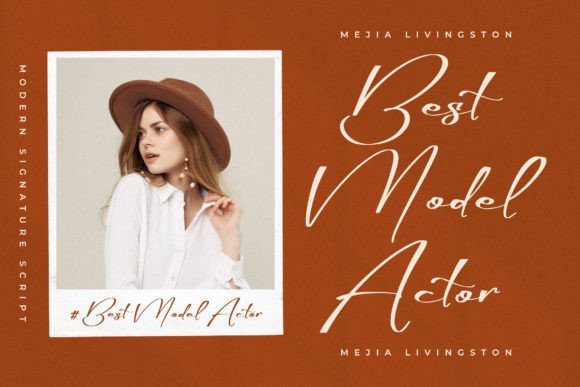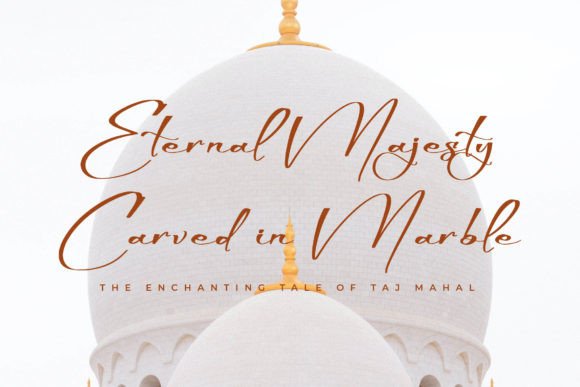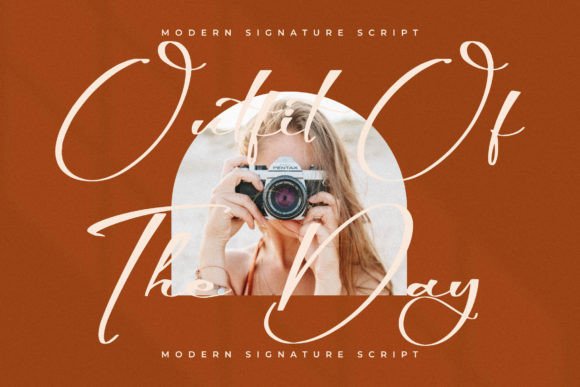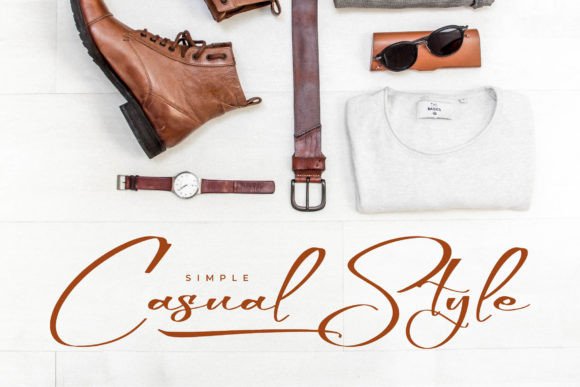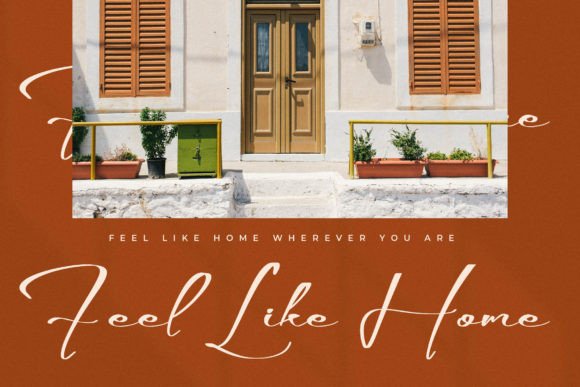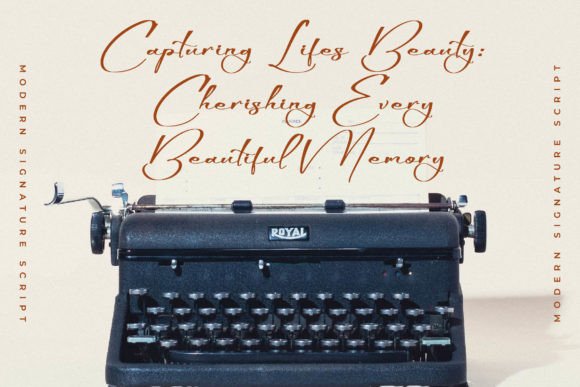
Introduction to Seartlime Font
Have you ever stumbled upon the perfect font that instantly elevates your creative project from ordinary to extraordinary? For designers, finding that elusive font can be a game-changer. It’s the difference between a mediocre design and a stunning one that leaves a lasting impression.
Enter the Seartlime Font, a modern signature script font from Glorytype Studio that’s poised to become your new go-to design resource. With its high-quality strokes and elegant curves, this font is perfect for adding a touch of sophistication to your branding projects, product packaging, or even personal quotes and posters.
Key Features of Seartlime Font
- High-quality, vector-based font design for a seamless and scalable experience.
- Comes with a transparent background, allowing for easy customization and integration into various designs.
- Features a large character set, including uppercase and lowercase letters, numbers, and punctuation marks, making it suitable for various design applications.
- Designed with a resolution of 300 DPI, ensuring crisp and clear typography even at larger sizes.
- Perfect for use in creative projects, such as logos, branding materials, and digital designs, where a unique and eye-catching font is required.
Honest Review: Seartlime Font
I recently had the chance to try out the Seartlime Font, and I’m excited to share my thoughts on it. This font is a great addition to any designer’s toolkit, and I was pleasantly surprised by its quality and versatility.
- ✨ High quality: The Seartlime Font is crisp and clear, with a beautiful, modern aesthetic that’s perfect for any creative project.
- ✨ Transparent background: This font features a transparent background, which makes it easy to use in a variety of design contexts.
While the Seartlime Font is a great resource, there are a few limitations to be aware of:
- ⚠️ Limited language support: Unfortunately, this font doesn’t support a wide range of languages, which may limit its usability in certain projects.
- ⚠️ Not suitable for small text: The Seartlime Font is best used for larger text, as it can become difficult to read at smaller sizes.
Overall, I’m impressed with the Seartlime Font and would recommend it to designers looking for a high-quality, free download for their creative projects. It’s a great addition to any design resource library.
Tips for Getting the Most Out of Seartlime Font
To get the most out of Seartlime Font, consider using it in combination with other design resources, such as graphics and images, to create a cohesive and visually appealing design. Experiment with different font sizes, colors, and styles to add depth and interest to your project.
Seartlime Font is a versatile design resource that can be used in a variety of creative projects, including logos, branding materials, social media graphics, and presentations. Its high quality and transparent background make it an ideal choice for designers looking to create professional-looking designs with ease.
Can I use Seartlime Font on a transparent background?
Yes, Seartlime Font has a transparent background, making it perfect for designers who want to use the font on a transparent or semi-transparent background. This adds an extra layer of creativity to your designs.